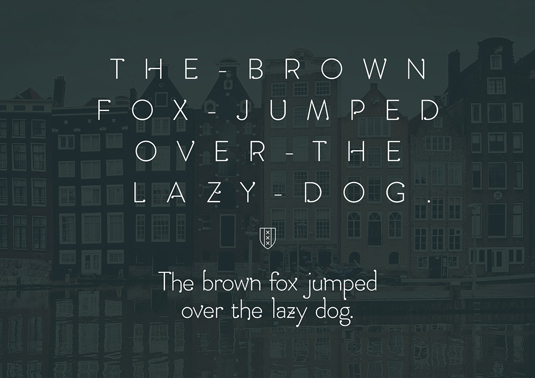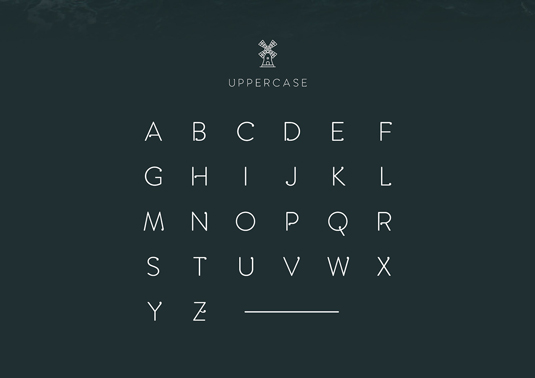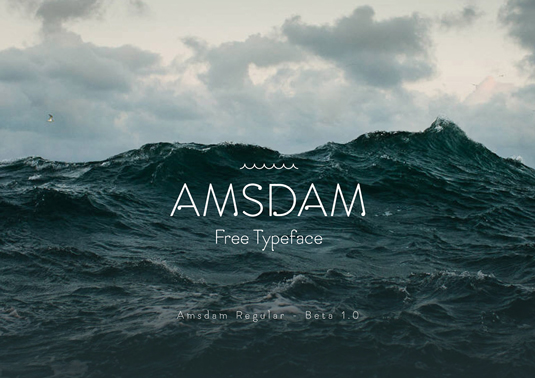
Font of the day: Amsdam
Today typeface of choice is Amsdam by Davide Mancini, which you can download in exchange for a tweet.
Amsdam by Davide Mancini
Kicking off our font of the day posts this week is Amsdam by art director Davide Mancini. Designed in Amsterdam, this clean and elegant font is available to download in exchange for a tweet, with donations to the author, as always, gratefully received.